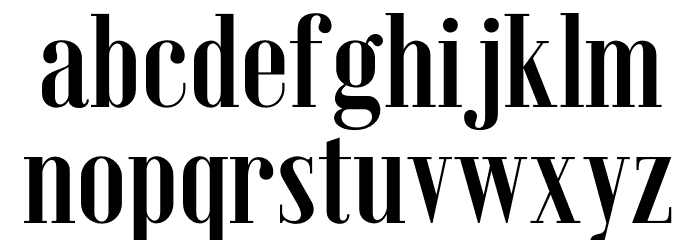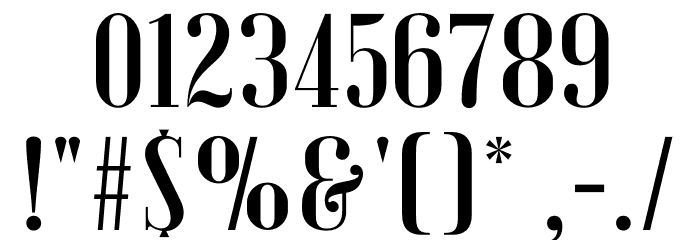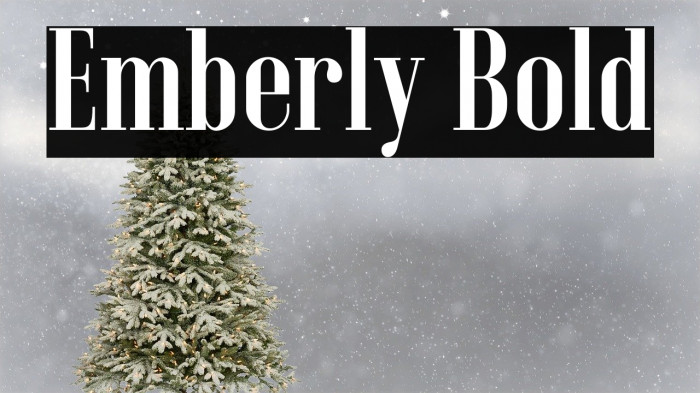
Emberly Bold Font
This font features a bold and elegant serif style, characterized by its high contrast between thick and thin strokes. The uppercase letters are tall and commanding, with sharp serifs that add a touch of sophistication. The lowercase letters maintain a consistent style, offering a harmonious blend of curves and straight lines. Numbers are designed with the same attention to detail, ensuring readability and aesthetic appeal. Special characters are crafted to match the overall style, making this font versatile for various design needs.
A bold, high-contrast serif font with elegant and sophisticated details.